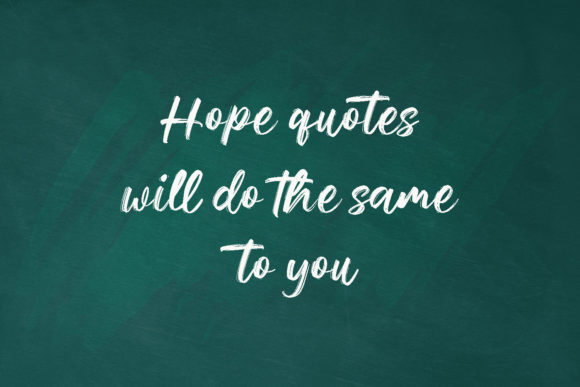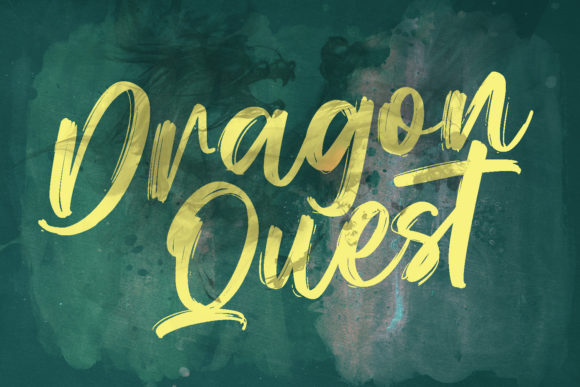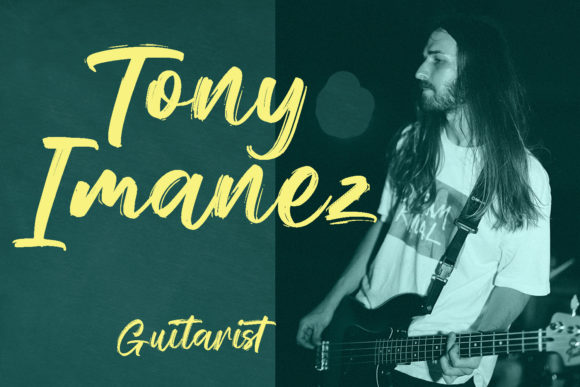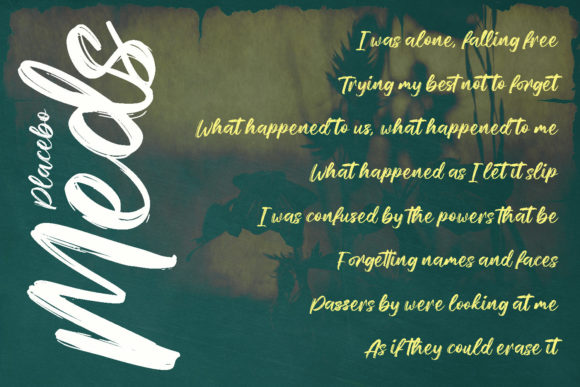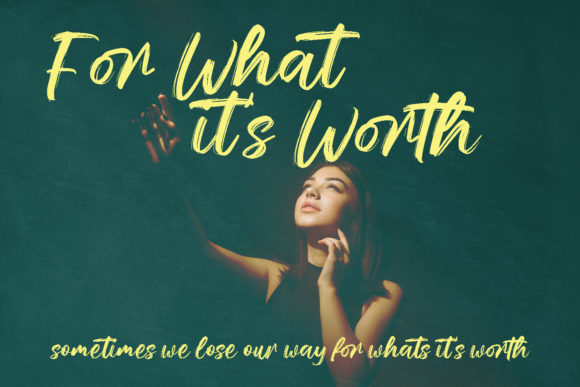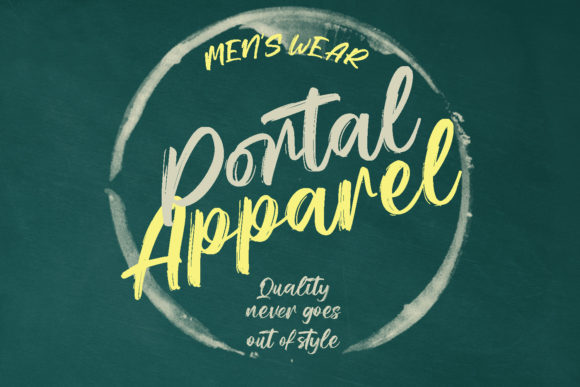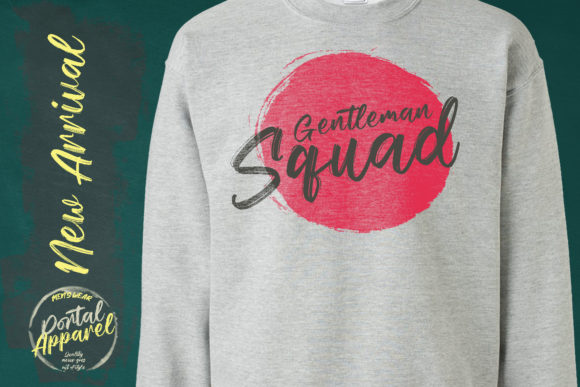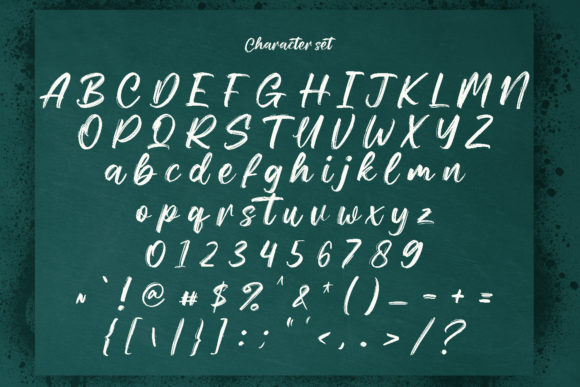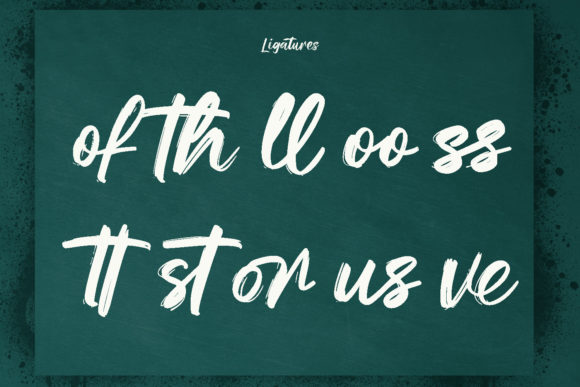
Blaze Spirit Font
About Blaze Spirit Font
Blaze Spirit stands out as a sophisticated brush script font, distinguished by its bold brush strokes that create a captivating contrast. This font exudes a playful yet refined vibe, making it an excellent choice for designers seeking to infuse creativity and flair into their projects. The inclusion of carefully designed ligatures adds an extra layer of artistic expression, setting Blaze Spirit apart as a versatile and dynamic typeface.
One of the font’s standout features is its broad multilingual support, making it accessible and adaptable for a global audience. This characteristic is particularly advantageous for designers working on diverse projects that require text in different languages. Whether you’re crafting a logo, designing social media graphics, or working on movie and book titles, Blaze Spirit provides a visually stunning and cohesive typographic element to enhance your overall design.
The bold brush contrast strokes of Blaze Spirit lend a sense of dynamism and energy to any text, capturing attention and conveying a modern, stylish aesthetic. The font’s versatility is further emphasized by its seamless integration with both sans and serif styles, making it an ideal choice for secondary text that complements various design elements.
Maulana Creative, the creator behind Blaze Spirit, has meticulously crafted a font that not only meets but exceeds the expectations of designers. The result is a typeface that not only meets the functional requirements of legibility and readability but also elevates the overall visual appeal of any project it graces.
In conclusion, Blaze Spirit is more than just a font; it’s a design tool that empowers creatives to make a bold statement. With its bold brush strokes, playful characters, and thoughtful ligatures, Blaze Spirit stands as a testament to Maulana Creative’s commitment to providing high-quality resources for designers across various creative endeavors. Cheers to unleashing the full potential of your creative projects with the stunning Blaze Spirit font.